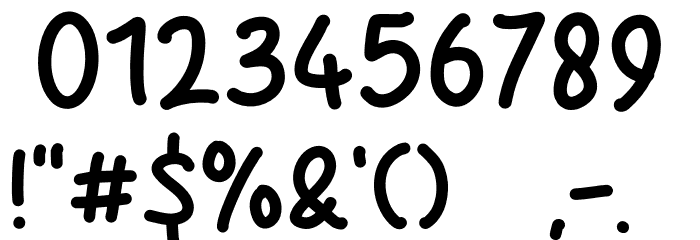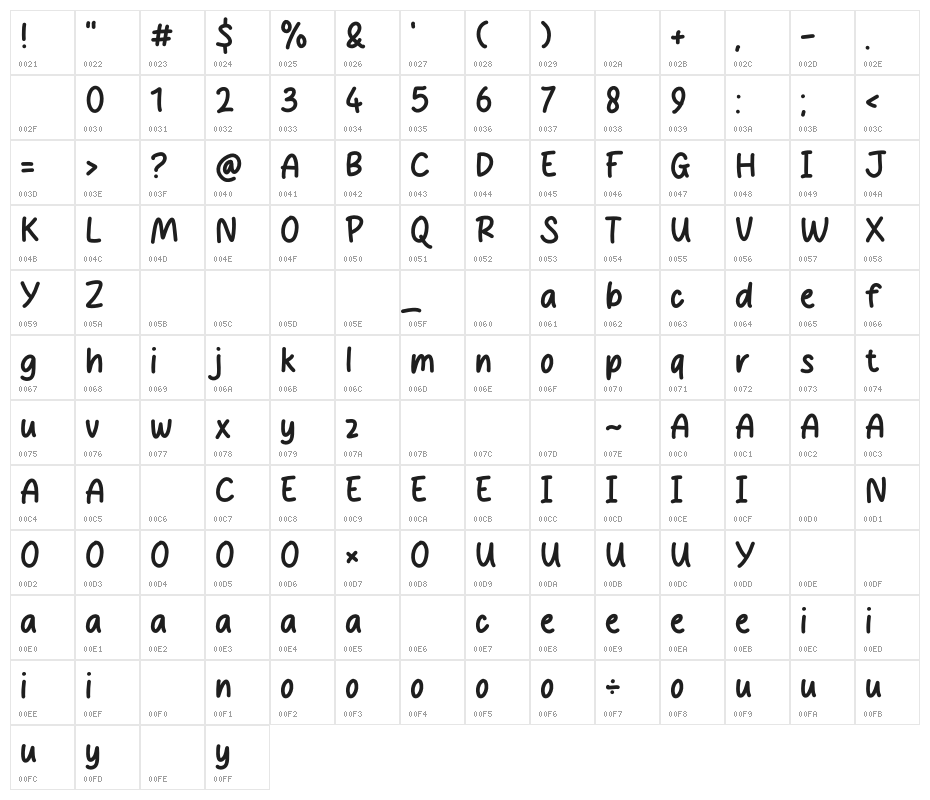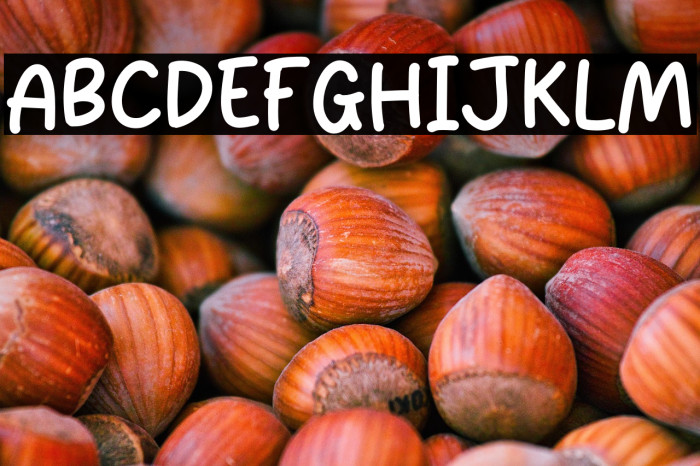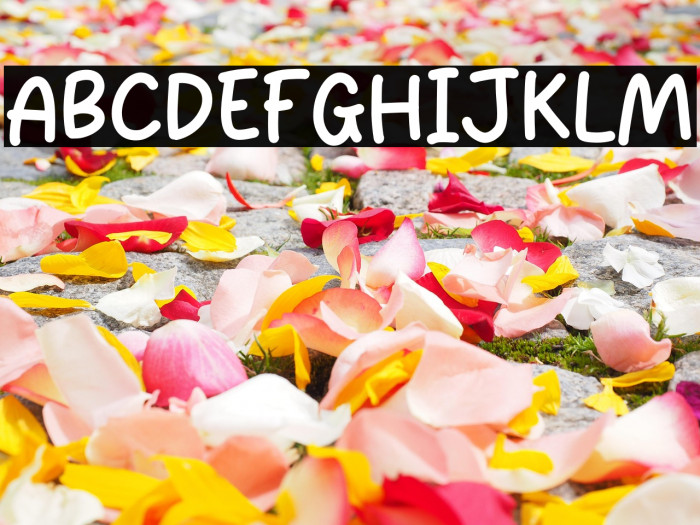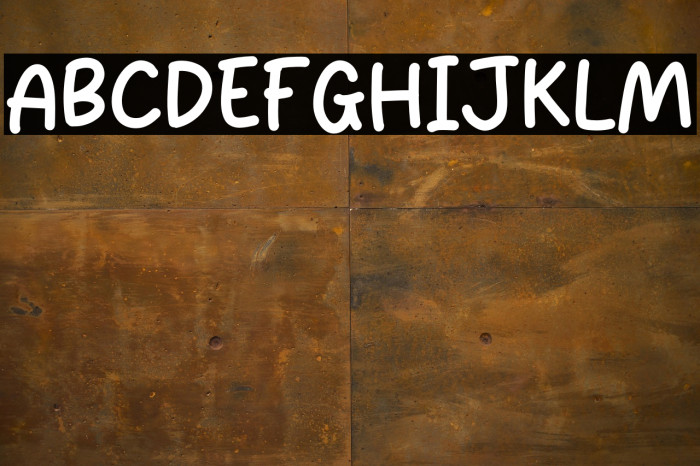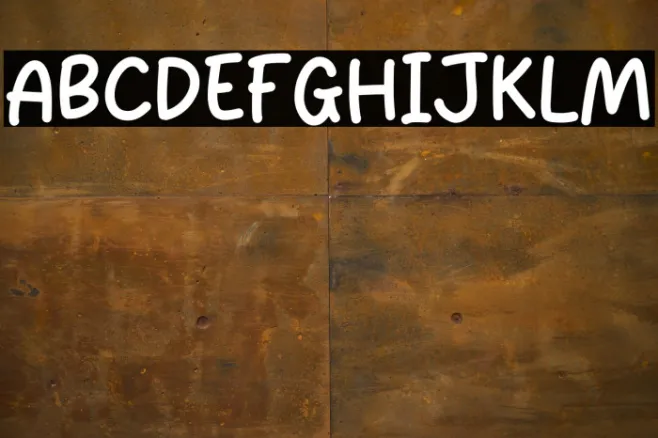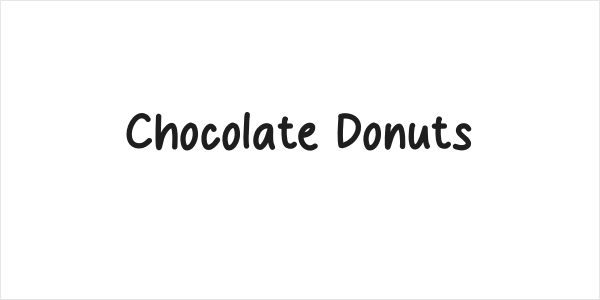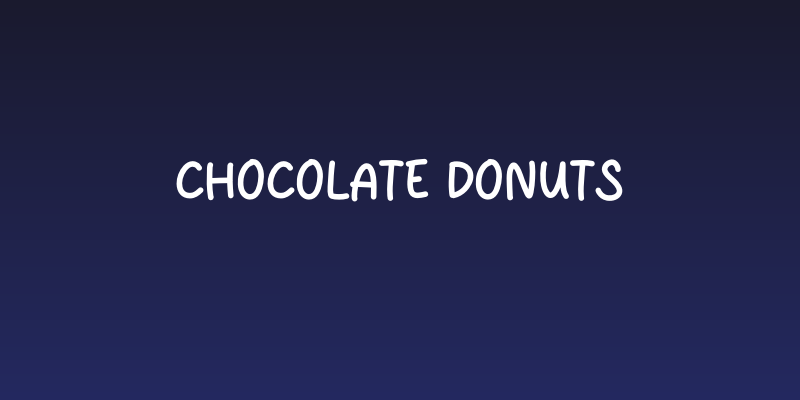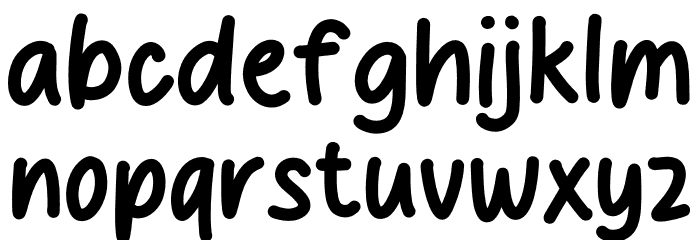
Chocolate Donuts Font
Chocolate Donuts Description
This playful and rounded font exudes a friendly and approachable vibe, characterized by its bold and smooth curves. The letters are slightly irregular, giving it a hand-drawn, casual appearance that is both charming and inviting. The font maintains a consistent stroke width, contributing to its cohesive and uniform look. Its whimsical style makes it ideal for projects that require a touch of fun and creativity. The characters are well-spaced, ensuring readability while maintaining its unique personality.
| Use Case | Logos, Posters, Invitations |
| Proposed Projects | Ideal for children's books, playful branding, casual invitations, and creative posters. |